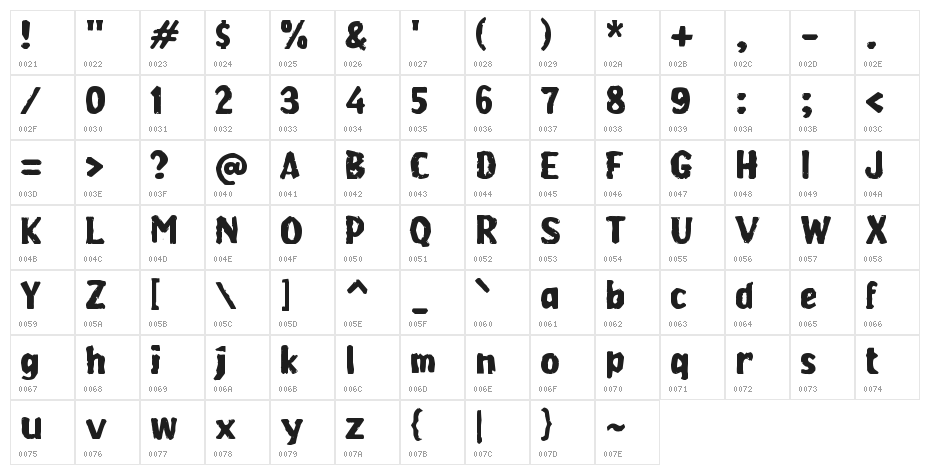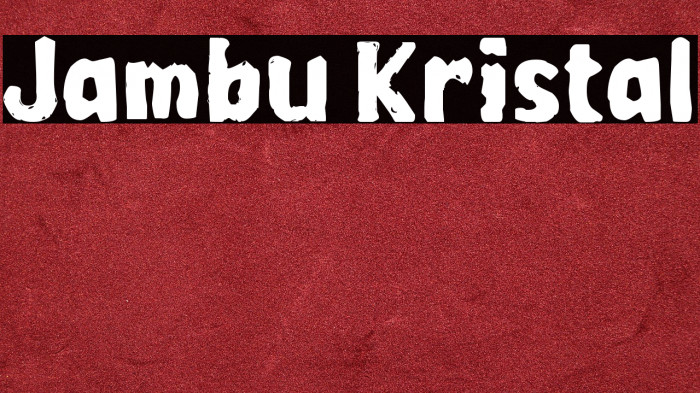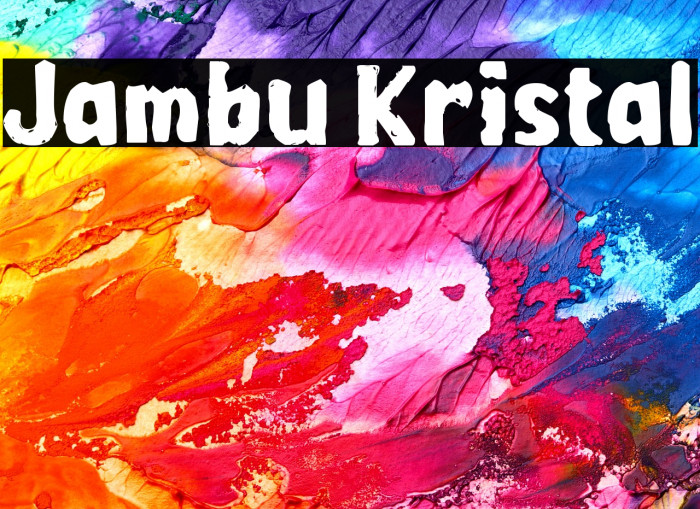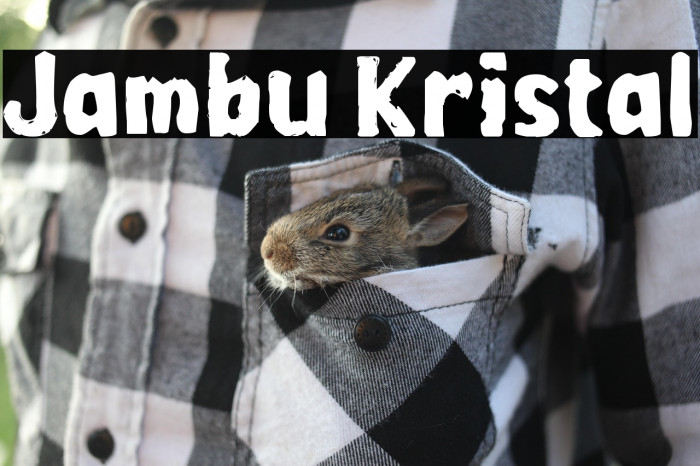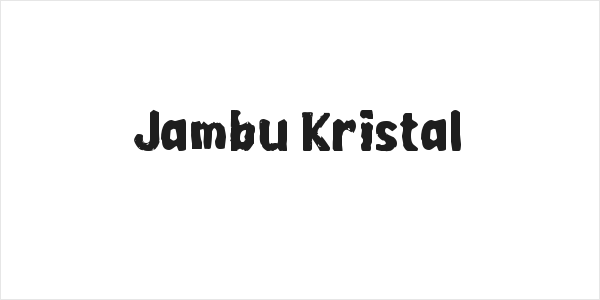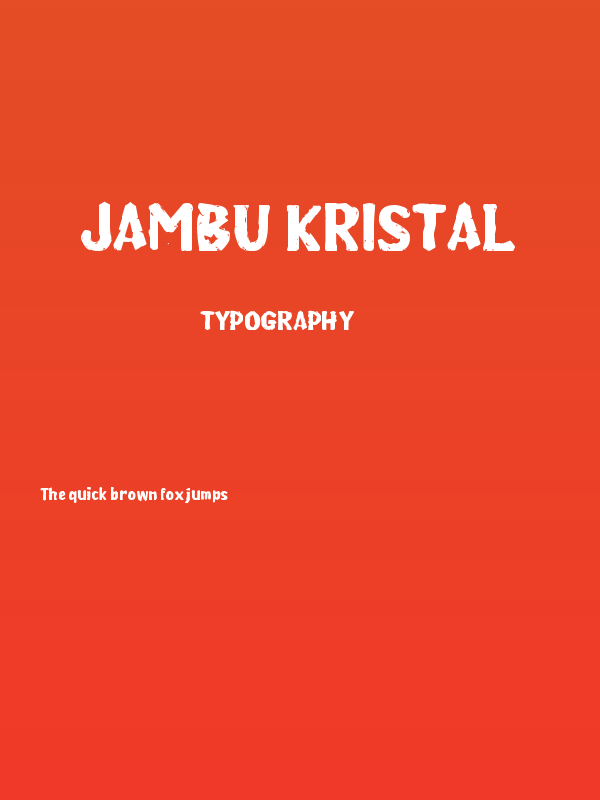
Jambu Kristal Font
Jambu Kristal Description
A bold, distressed sans-serif typeface with rough, uneven edges and a hand-painted appearance. The characters are thick and have a playful, energetic feel, with irregular texture throughout each glyph.
| Overall Style | Decorative, Grunge, Urban |
| Use Case | Headlines, Posters, Logos, Display text |
| Proposed Projects | Posters, album covers, event flyers, branding for creative industries, street art-inspired designs. |